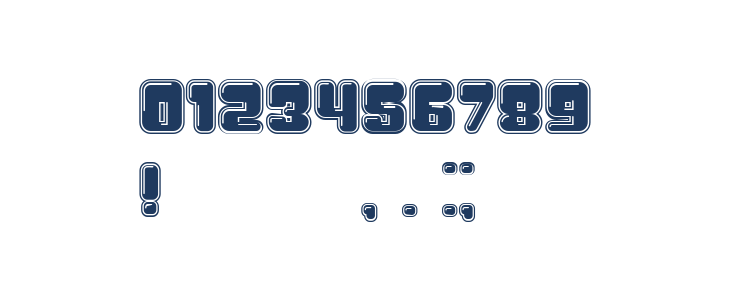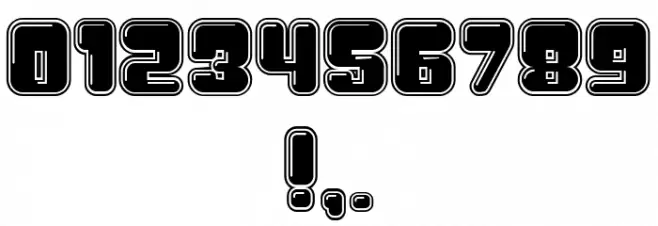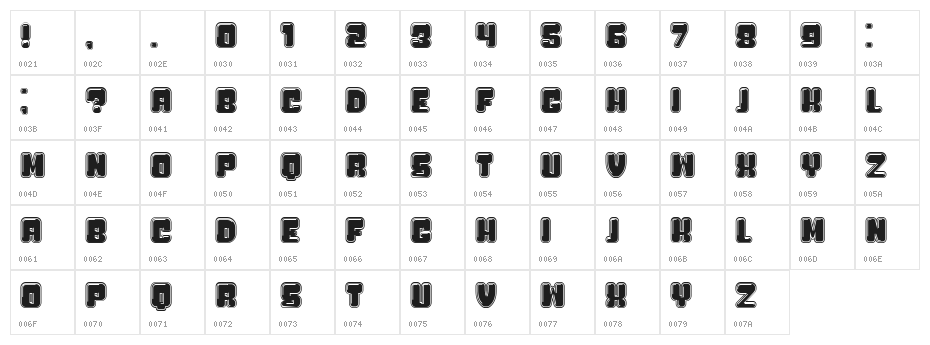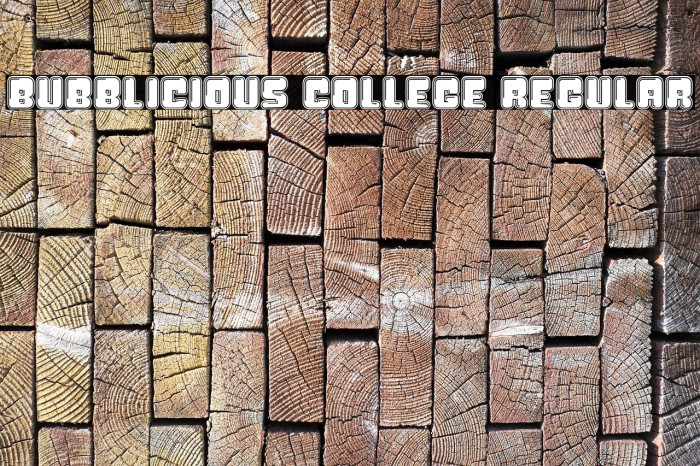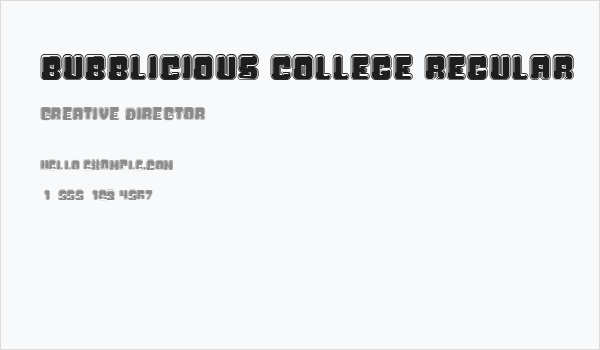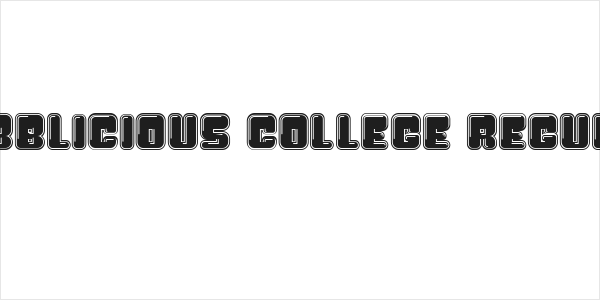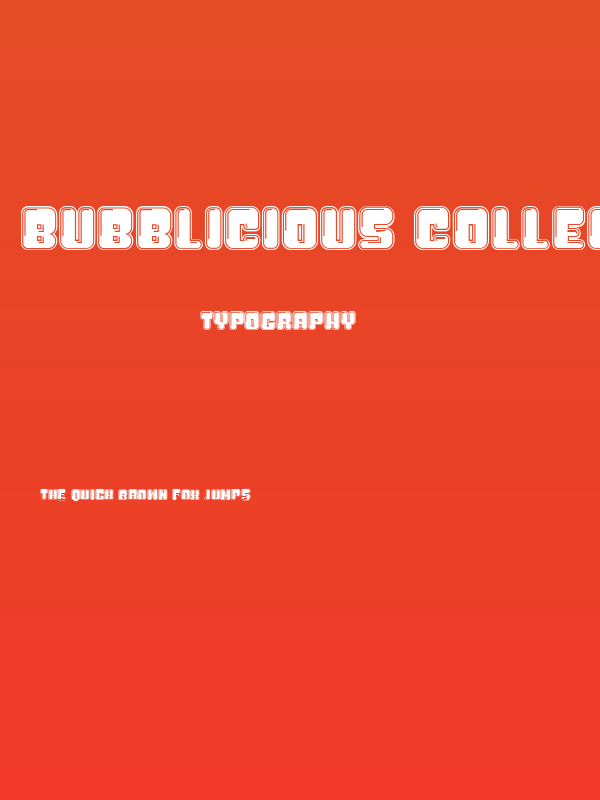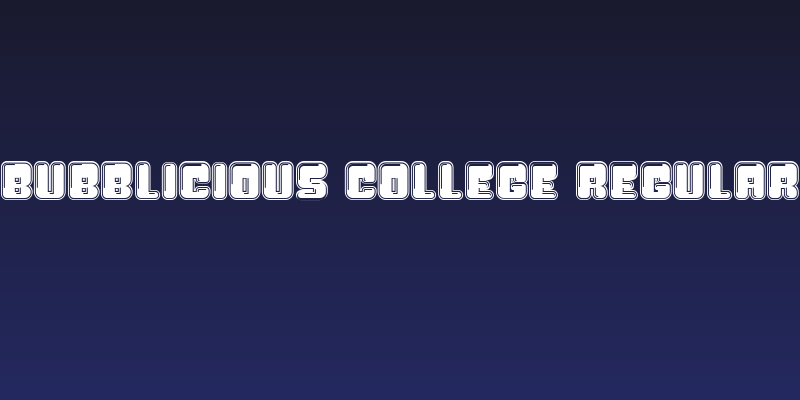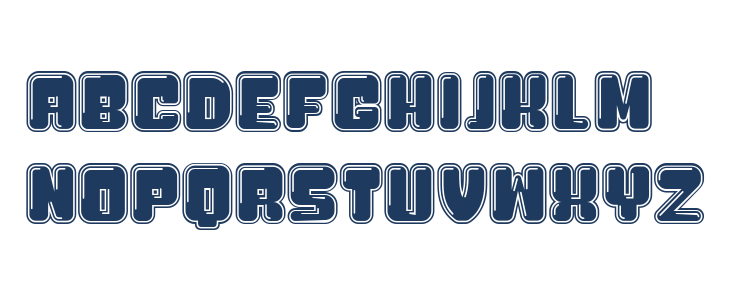
Bubblicious College Regular Font
Bubblicious College Regular Description
This font features a bold, playful style with a bubble-like appearance. The characters are outlined with a thick border, giving them a three-dimensional effect. The rounded edges and uniform thickness throughout the letters create a sense of fun and whimsy. The uppercase and lowercase letters maintain a consistent style, while the numbers and special characters complement the overall design. This font is ideal for projects that require a lively and energetic feel, such as children's books, party invitations, or playful branding.
| Overall Style | Playful, Fun |
| Proposed Projects | Ideal for children's books, party invitations, playful branding, and eye-catching headlines. |